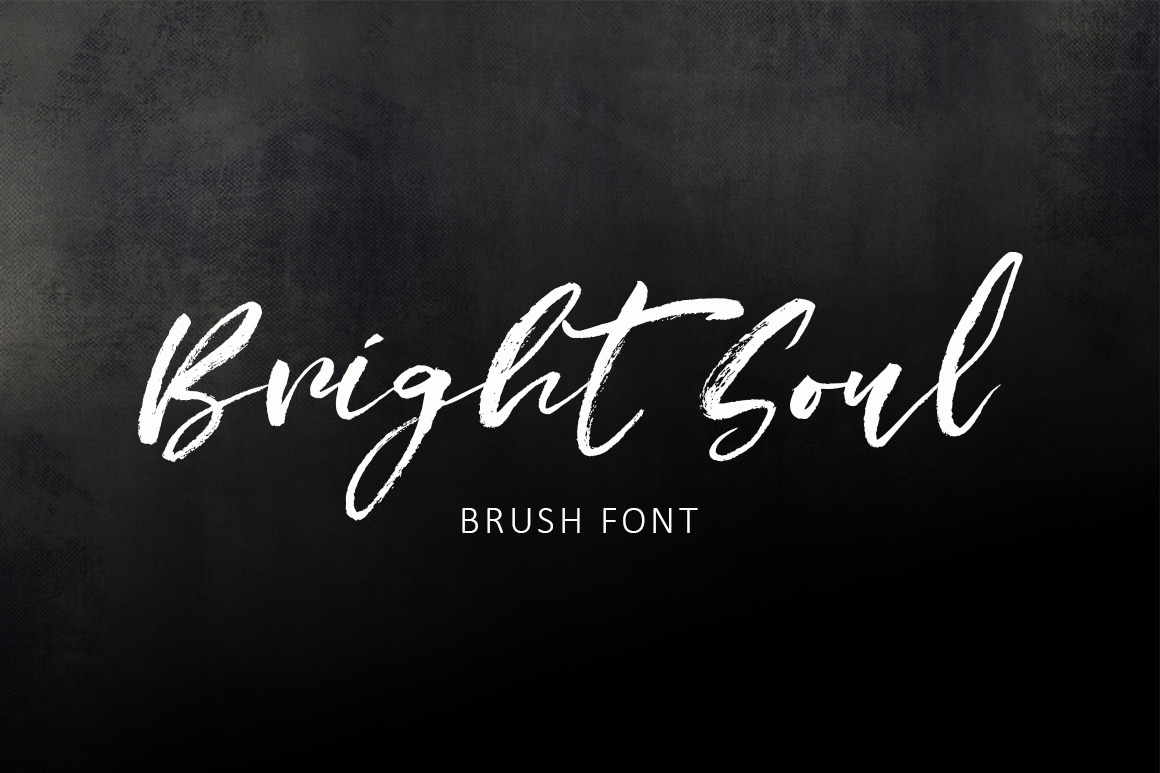
Bright Soul Script Font
Introducing Bright Soul a brush script font with loads of hand brushed character.
Bright soul has alternates and double ligatures.